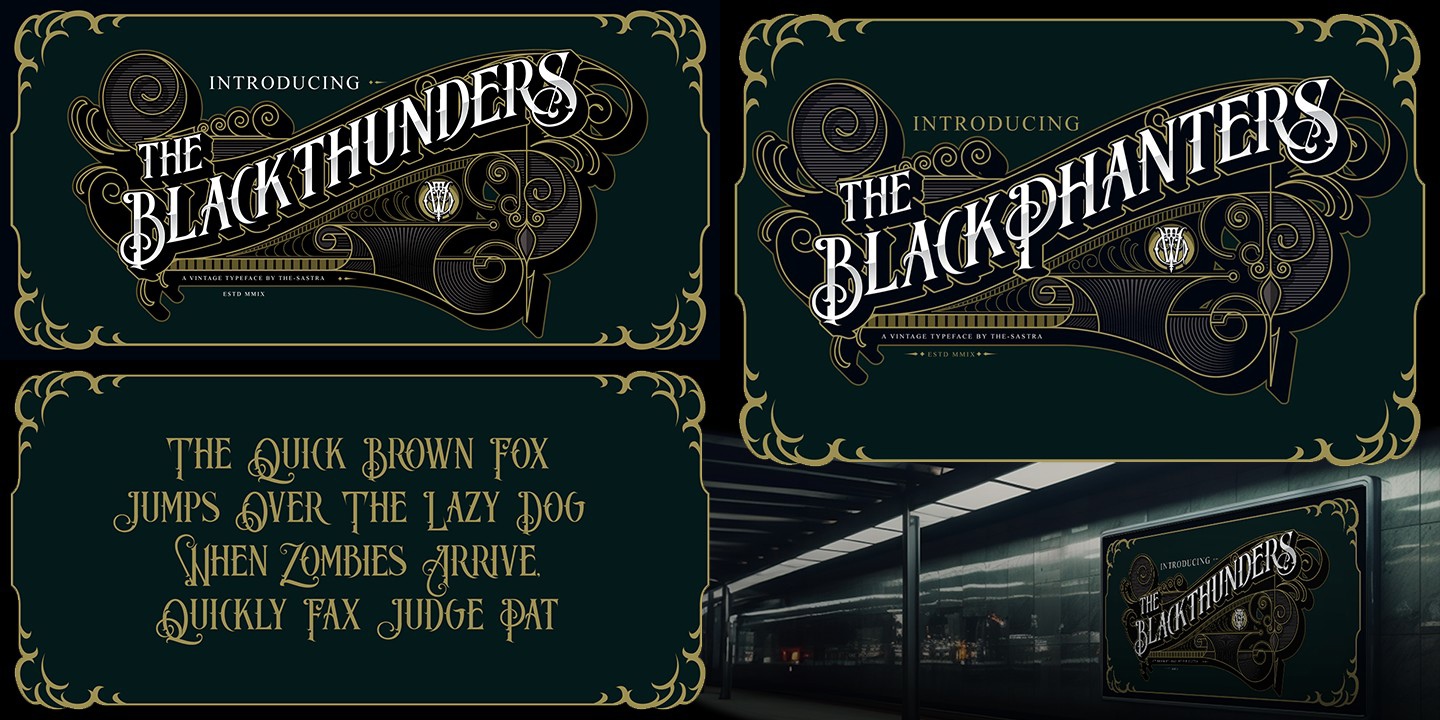
Blackthunders Font
Blackthunders Font is perfect for heavy metal band logos, motorcycle club branding, extreme sports marketing, energy drink packaging, gaming industry graphics, and action movie titles. This powerful typeface works exceptionally well in tattoo parlor signage, rock festival posters, and aggressive automotive brand communications.
What makes Blackthunders Font so exciting is its explosive energy and commanding presence that delivers raw power through typography. The font features bold, aggressive letterforms with sharp edges and dramatic weight variations that create immediate visual impact. Its thunderous aesthetic demonstrates exceptional strength and intensity, making it ideal for brands that need to project rebellion, power, and uncompromising attitude.
Blackthunders Font comes in multiple style variations including Regular, Bold, Outline, and Distressed versions. The font family also includes lightning bolt elements, decorative strikes, and storm-inspired alternates that provide additional creative options for high-impact design applications and authentic rebellion aesthetics.
The font's robust construction ensures excellent visibility across challenging environments, from large-scale concert banners to aggressive product labeling. Professional designers appreciate its comprehensive character support and specialized features that maintain impact under extreme visual conditions.
Blackthunders Font has become the go-to choice among creative professionals working with brands that require bold, uncompromising typography. Its ability to convey raw power and rebellious spirit makes it an invaluable asset for companies seeking to establish dominant presence through aggressive visual communication.